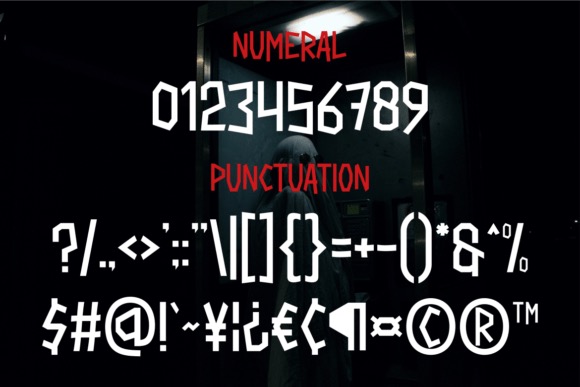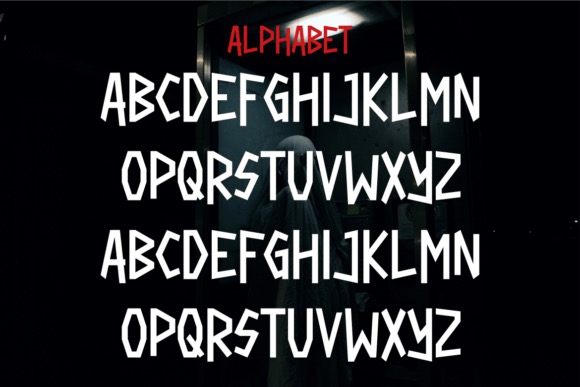
Spooky Holy is a cool and fancy horror display font that was created and published by Maikofarazhatta. It’s specifically designed to create a spooky, mysterious atmosphere and depict the spirit of Halloween celebrations. This font can be used in various Halloween-related media, such as party invitations, posters, merchandise designs, greeting cards, warning signs, or within website designs with Halloween themes.
Spooky Holy Display Font